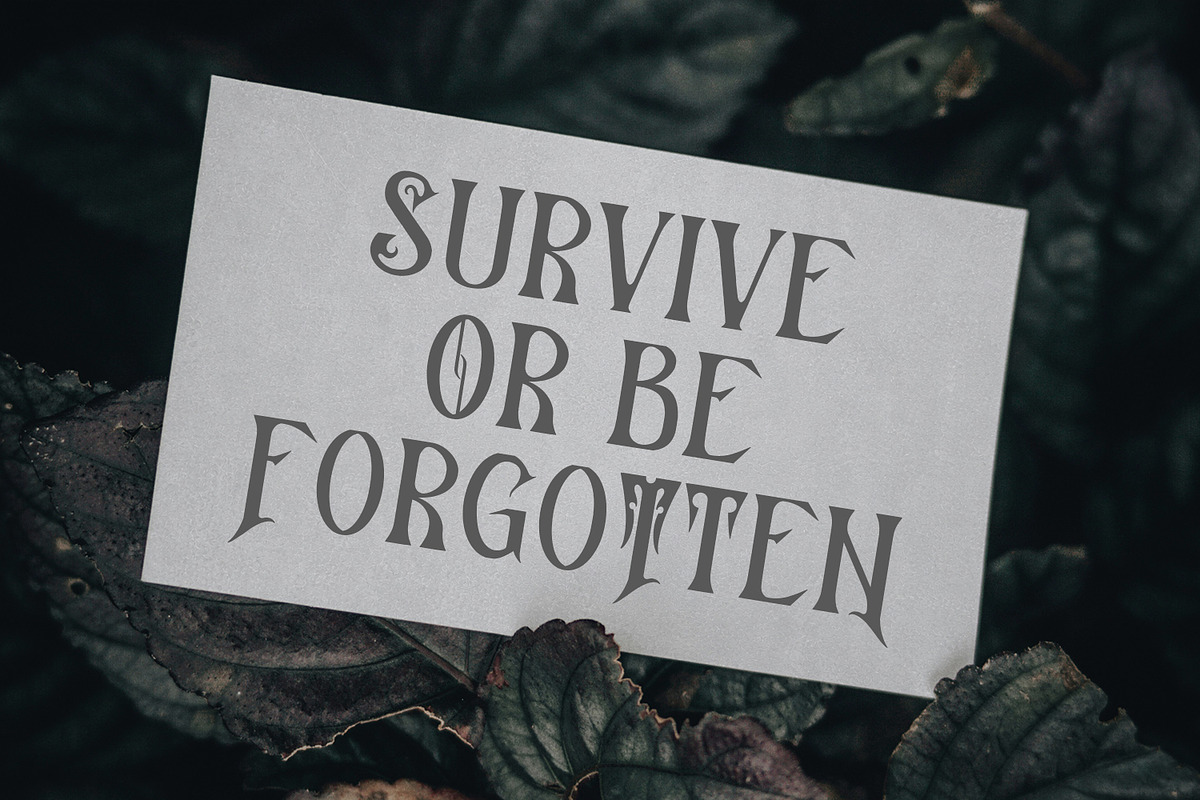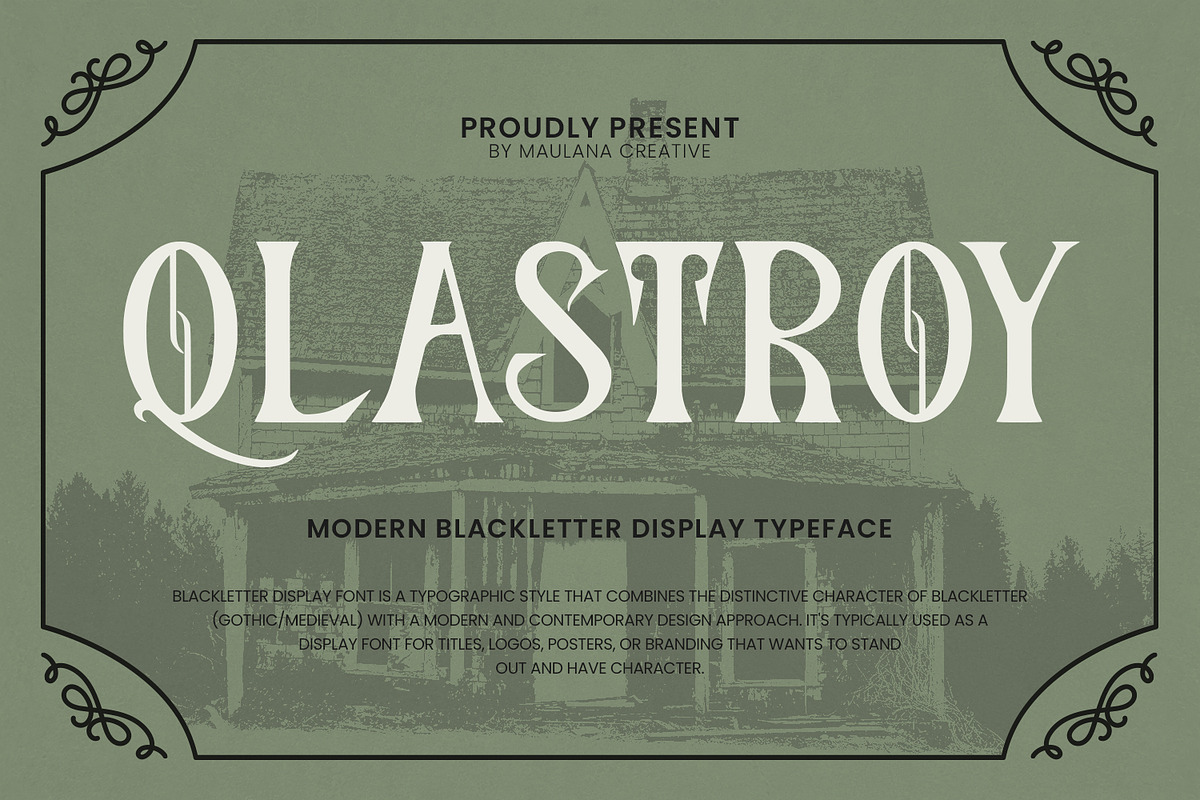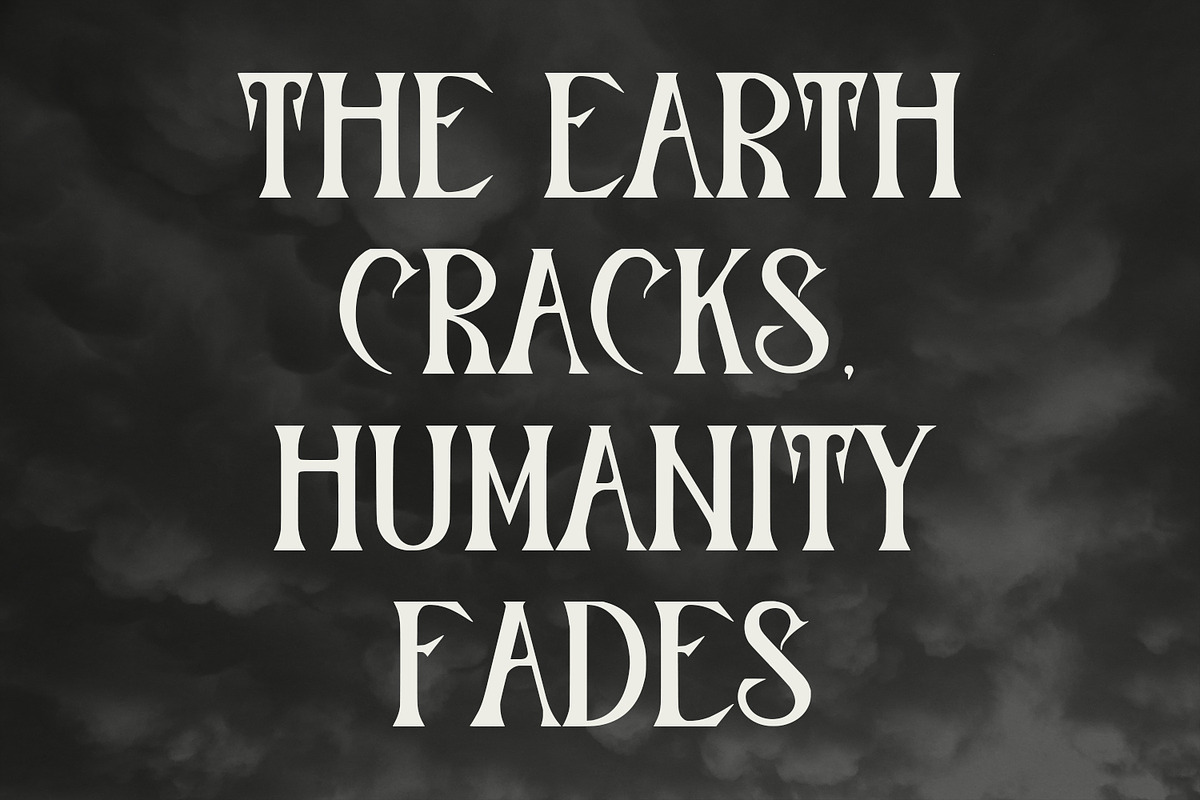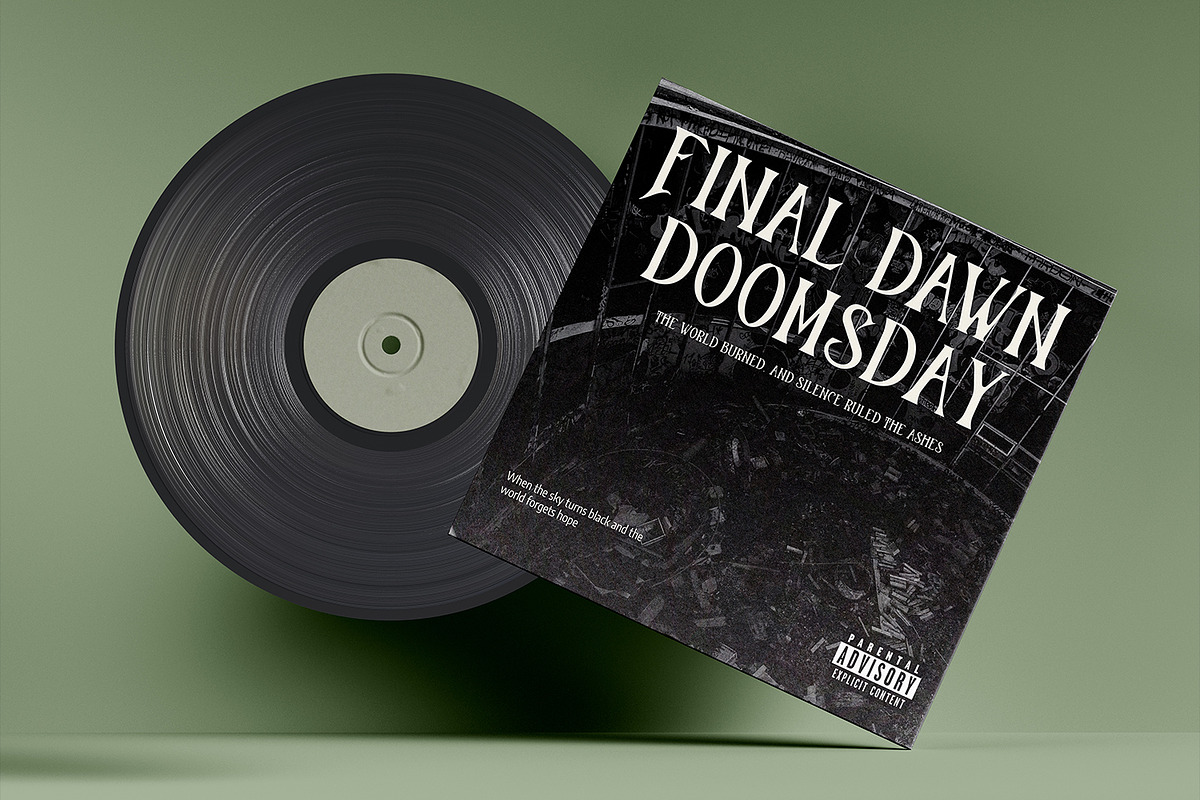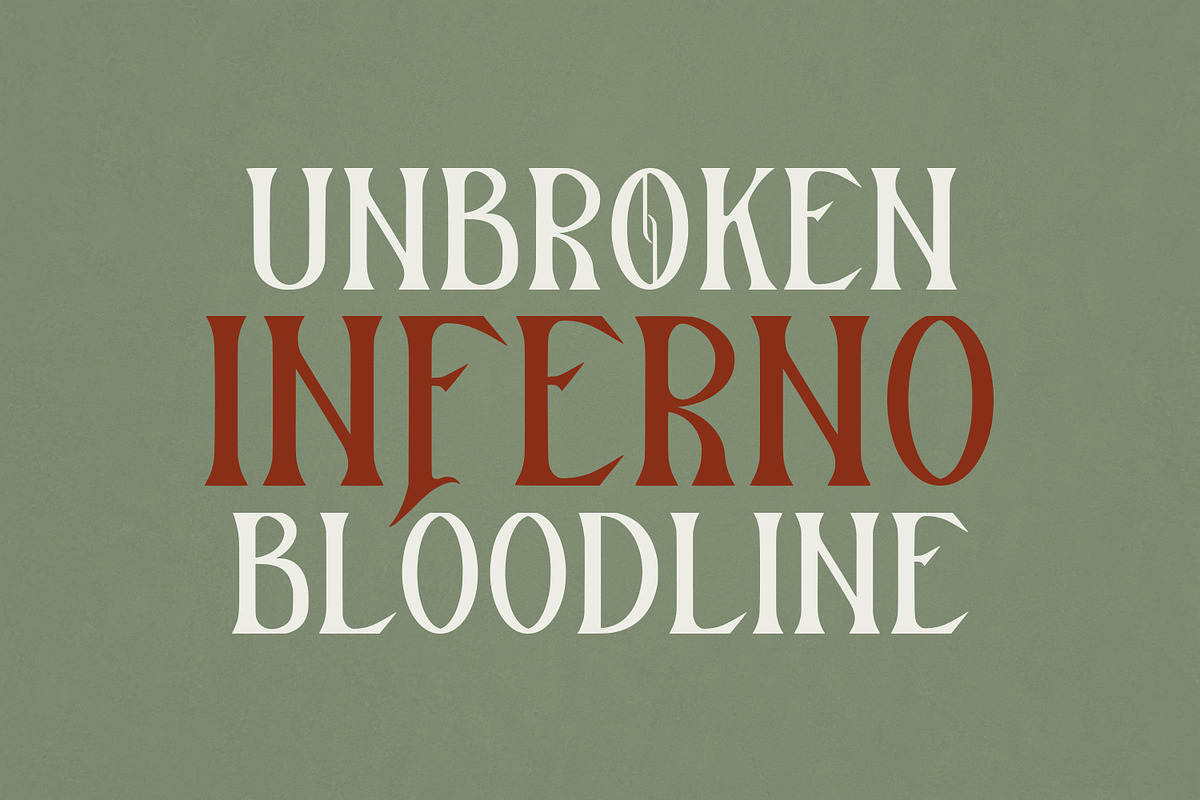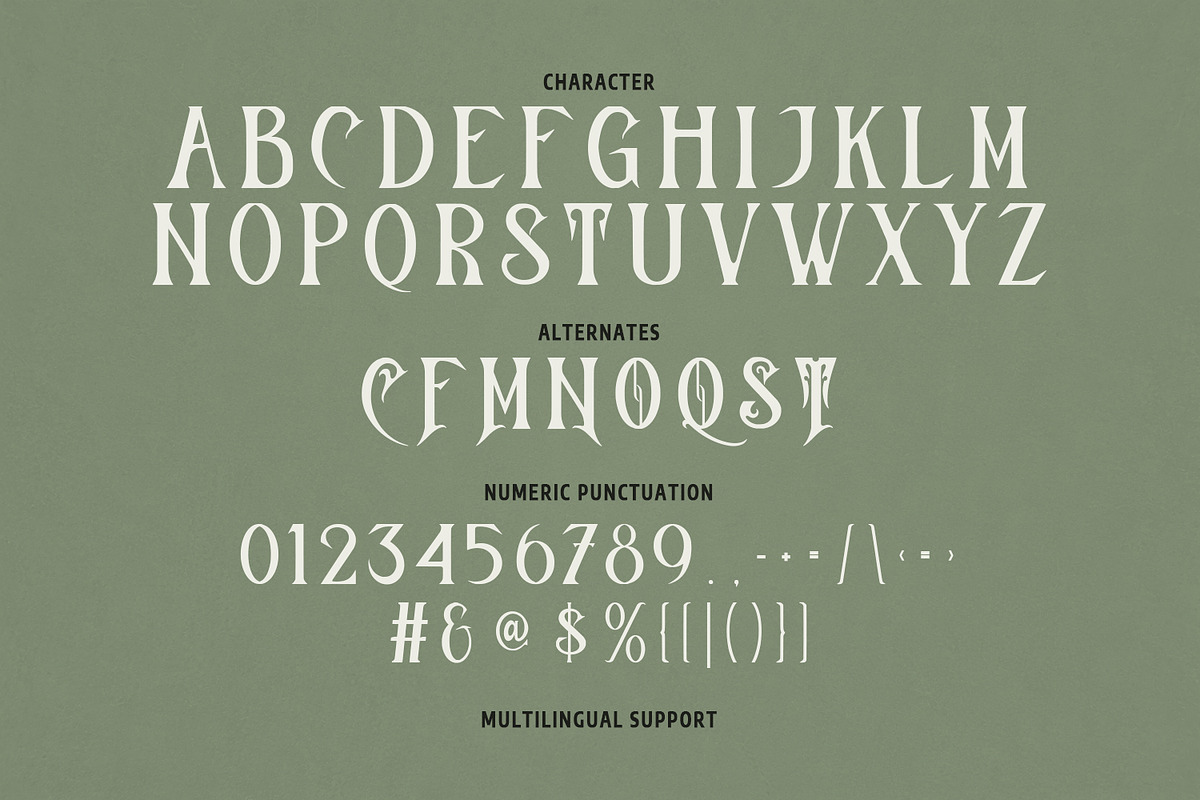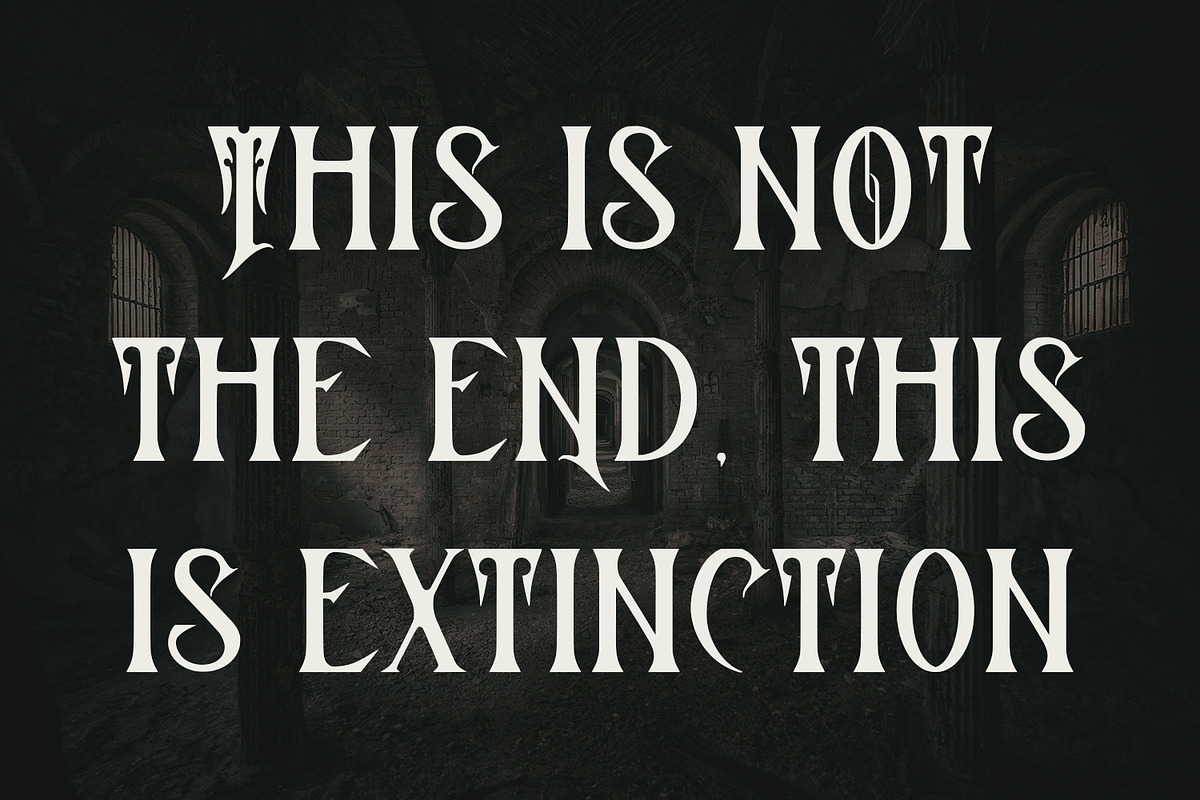
Qlastroy Modern Blackletter Display
Qlastroy is a striking display font that masterfully blends the dark, intricate soul of traditional blackletter (gothic/medieval) with a sharp, contemporary edge. Featuring elegant flourishes, unique alternates, and a hauntingly bold presence, this typeface is designed for high-impact projects. It is an ideal choice for metal band logos, horror-themed posters, edgy streetwear branding, vinyl cover art, and any design that demands a powerful, mysterious, and unforgettable character.
This display font features tall, condensed letterforms and striking ornamental alternates that give your text a custom, hand lettered feel. It is perfectly suited for heavy metal aesthetics, tattoo-inspired branding, edgy labels, horror movie, and dramatic album. Whether you're designing for a "Scary Monster" or a "Melody Dramatic," Qlastroy provides the perfect balance of medieval soul and modern grit.
- Full Character Set: Includes a complete uppercase alphabet.
- Alternate: A dedicated set of alternate characters for creative customization.
- Full Numeric & Punctuation Support: Includes all standard symbols and numbers.
- Multilingual Support: Ready for global use with a wide range of accented characters and special symbols.